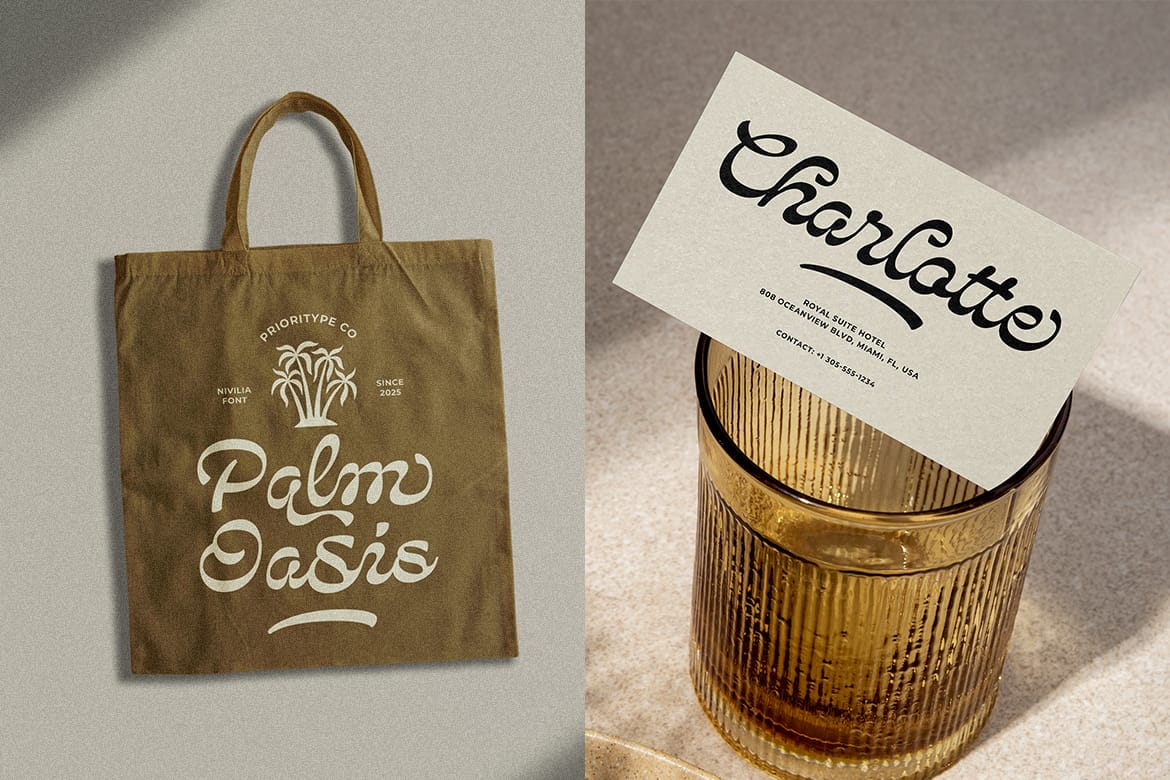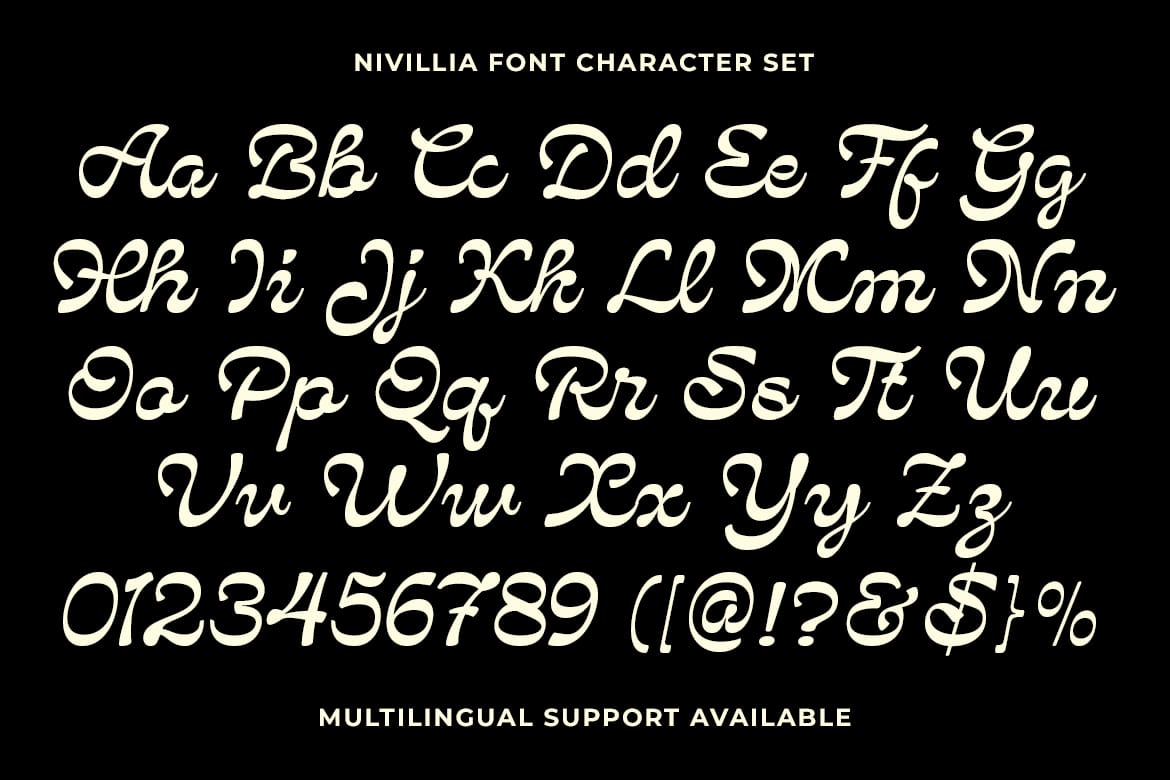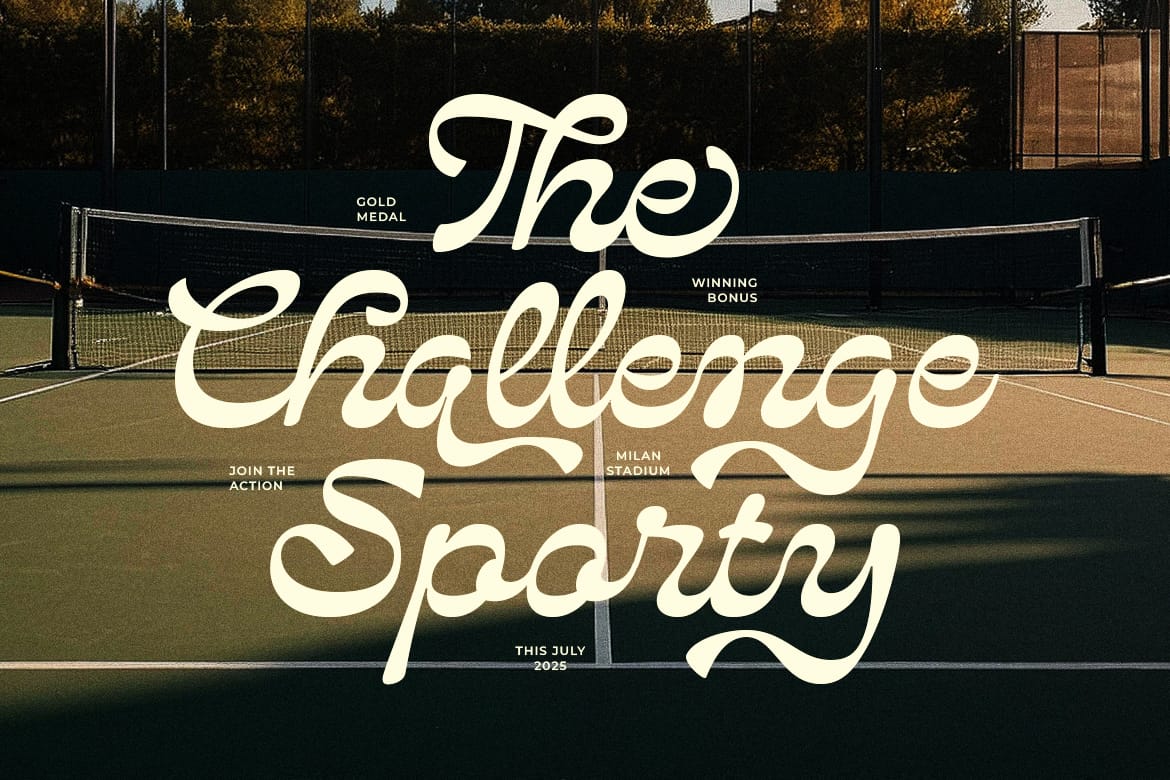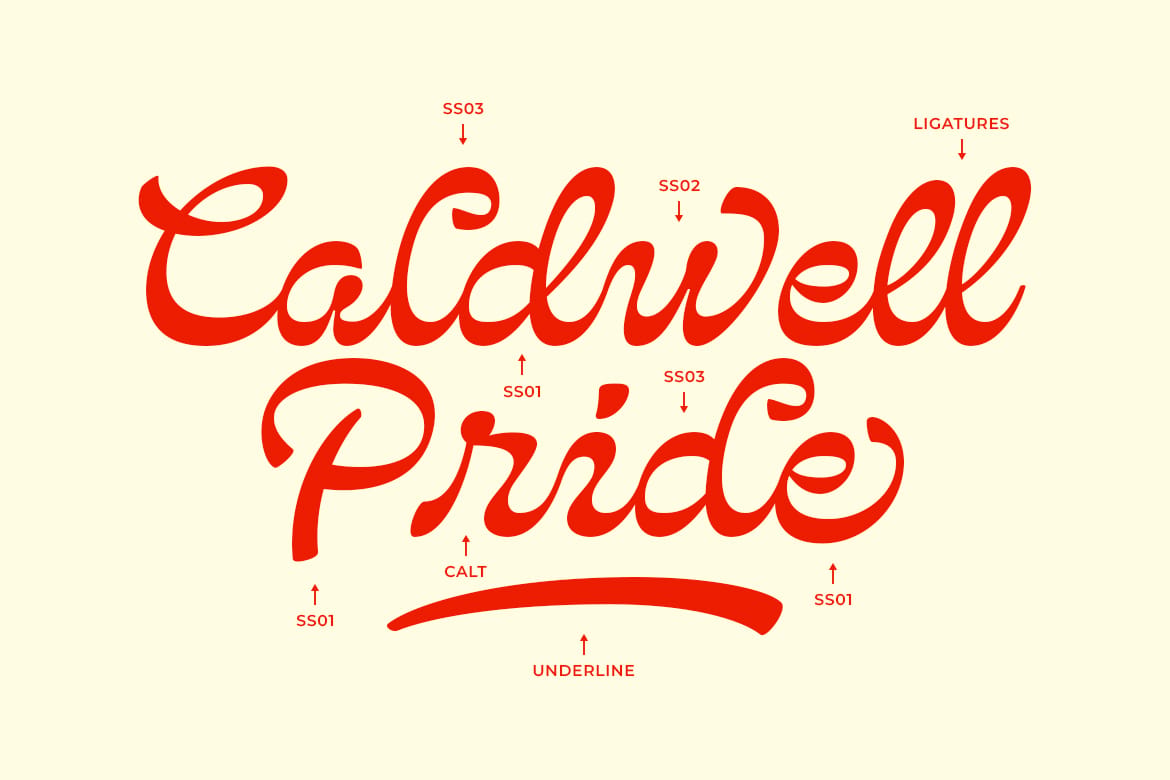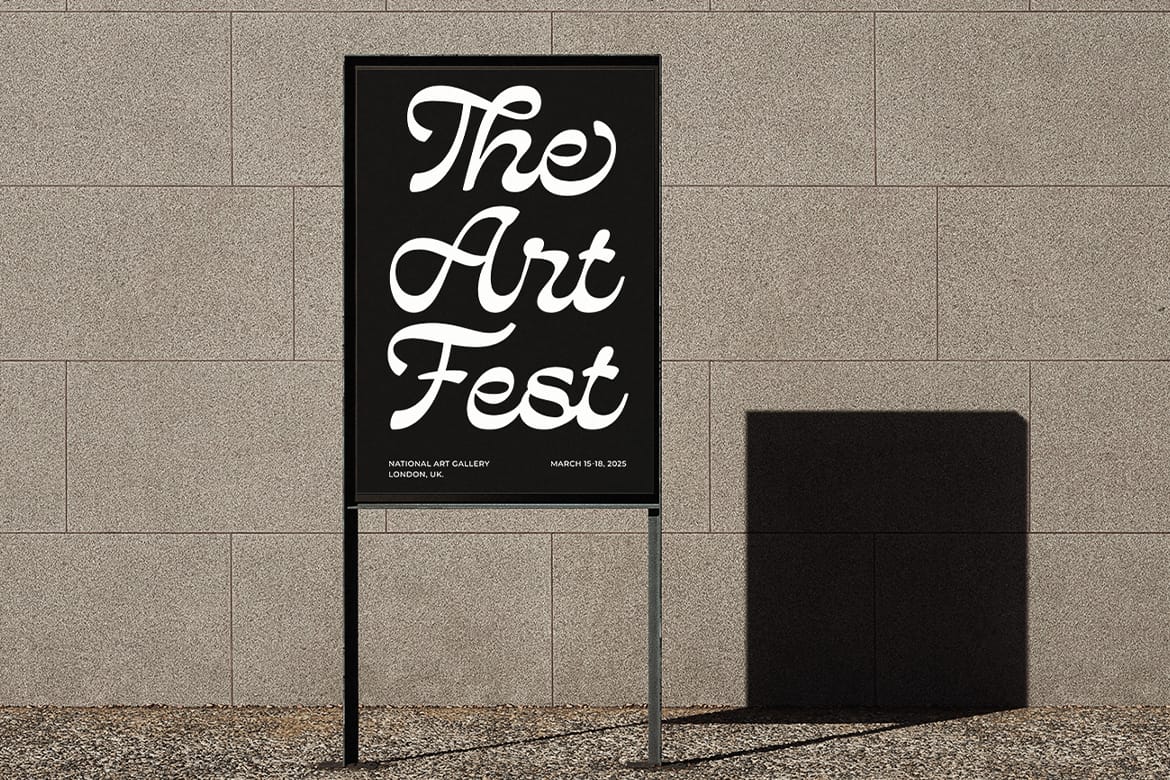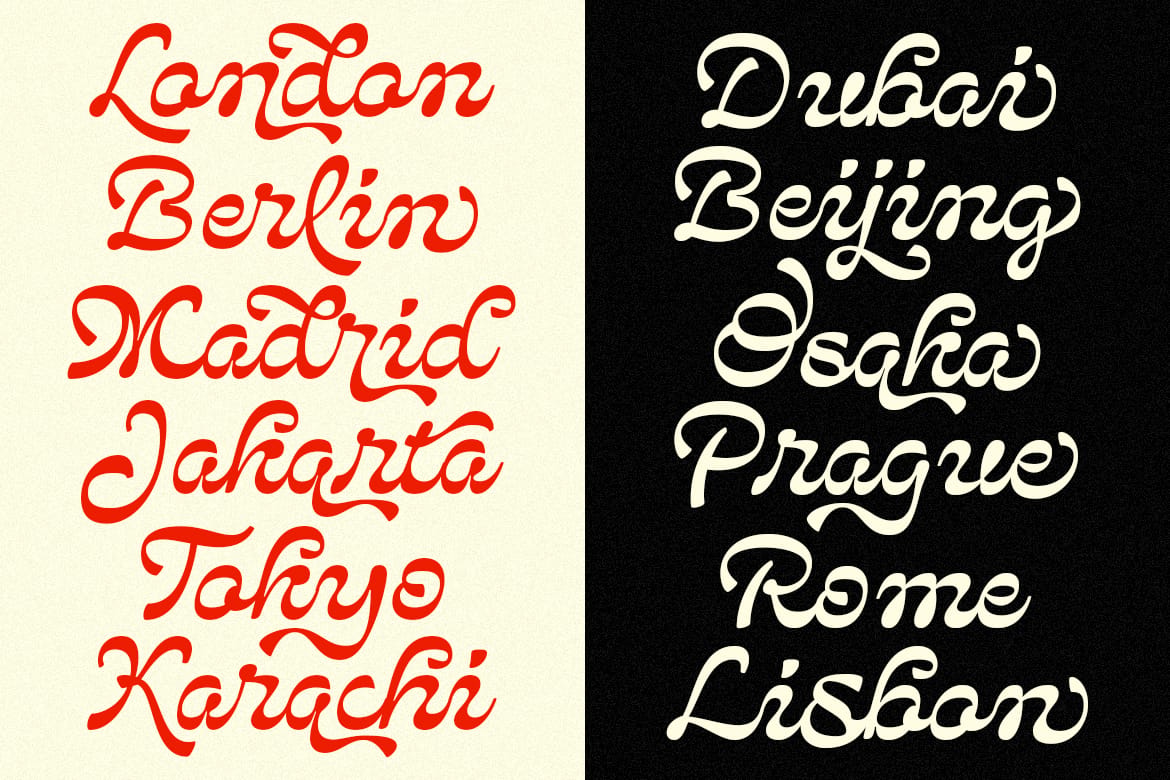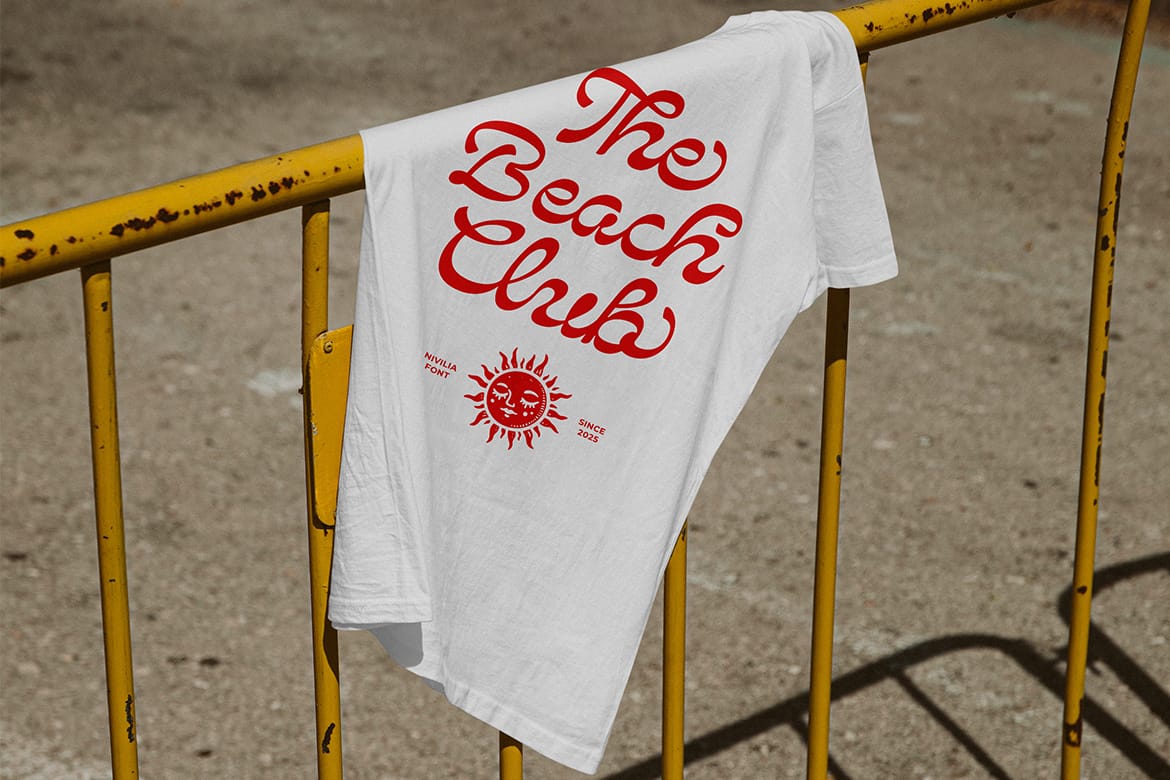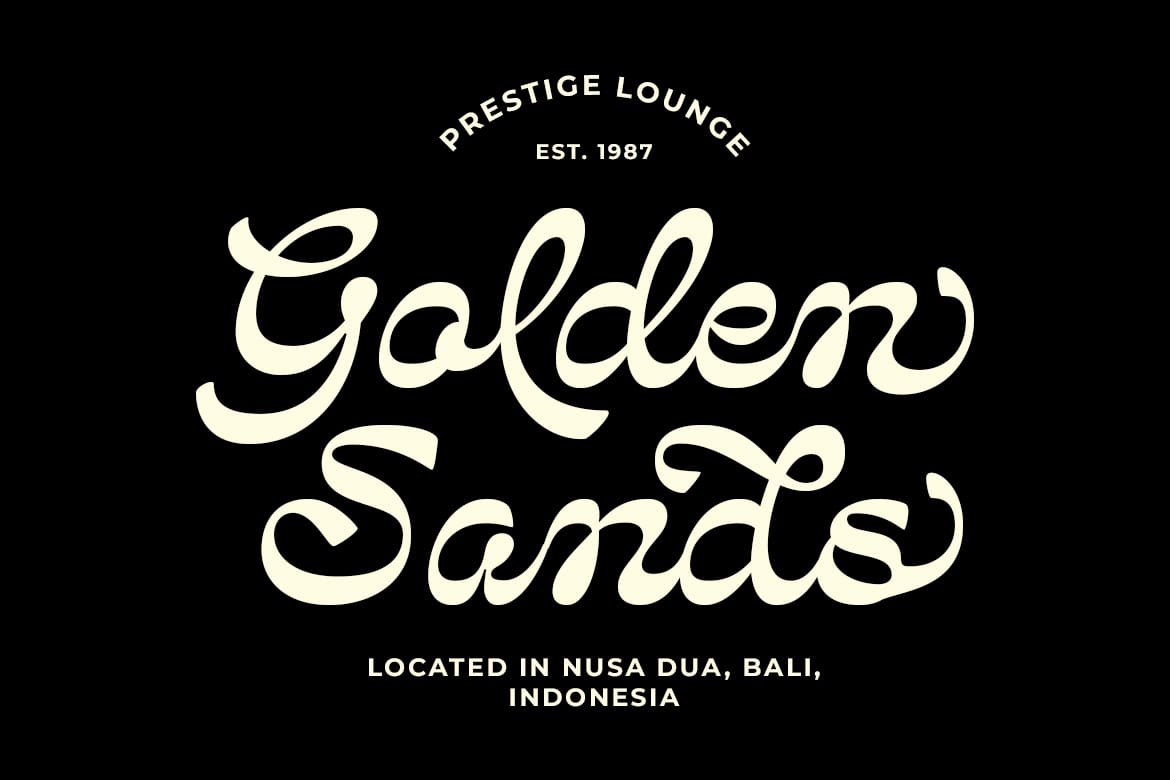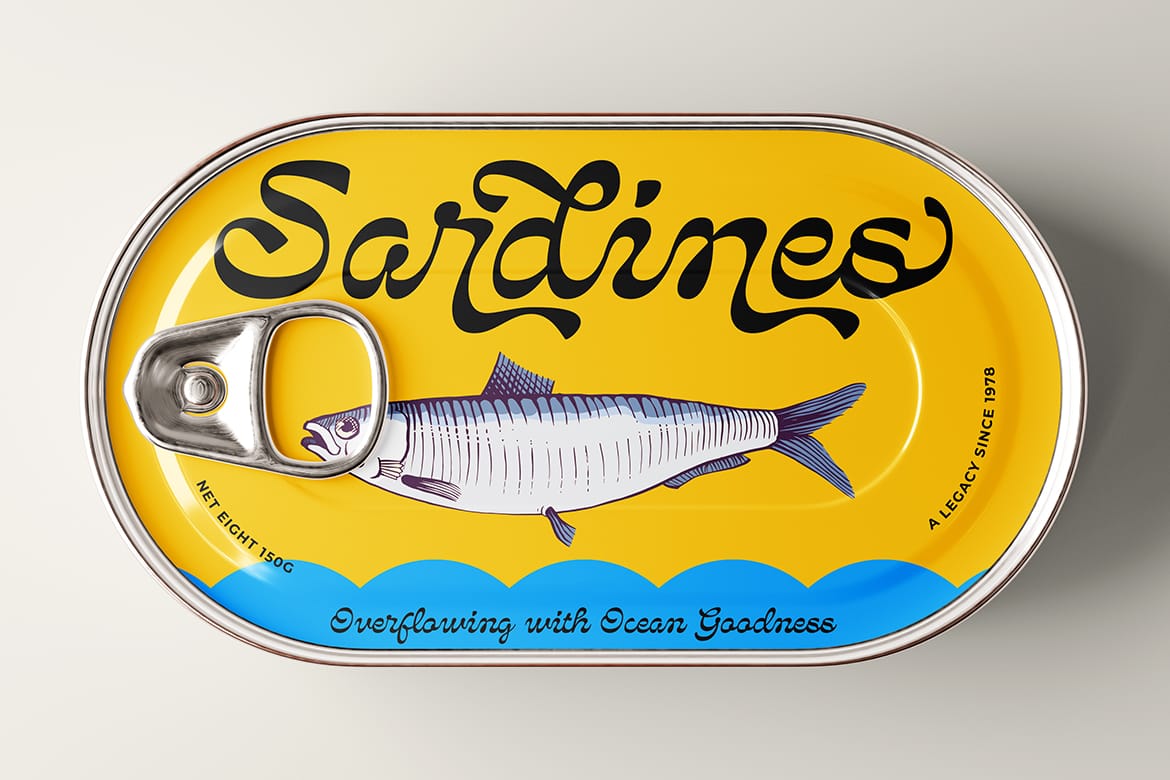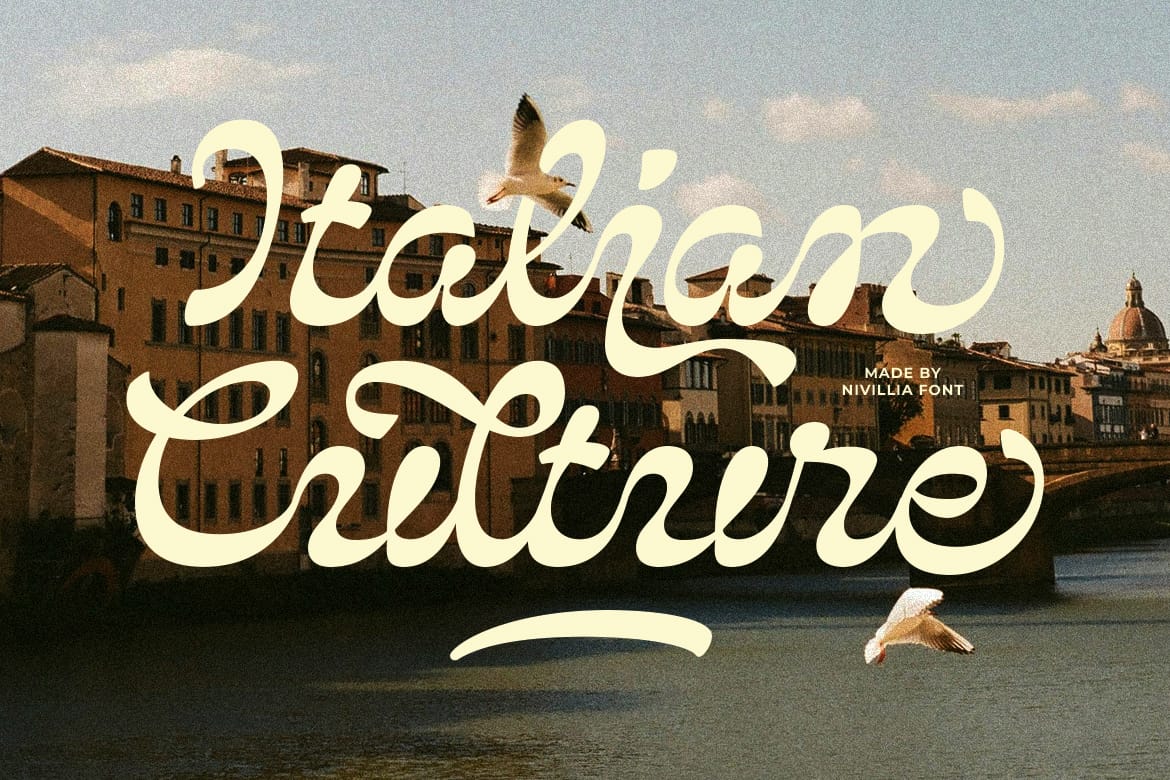
Nivillia - Bold Script Font
Nivillia is a bold script font that combines elegance and charm, perfect for logos, branding, and creative designs. With its smooth curves and stylish flow, Nivillia effortlessly adds a touch of class to modern and timeless aesthetics.
Features: Uppercase, Lowercase, Numeral, Punctuation, Multilingual, Alternates & Ligatures.
- Bold, elegant calligraphy script
- Smooth curves, stylish flow
- Alternates, ligatures, multilingual